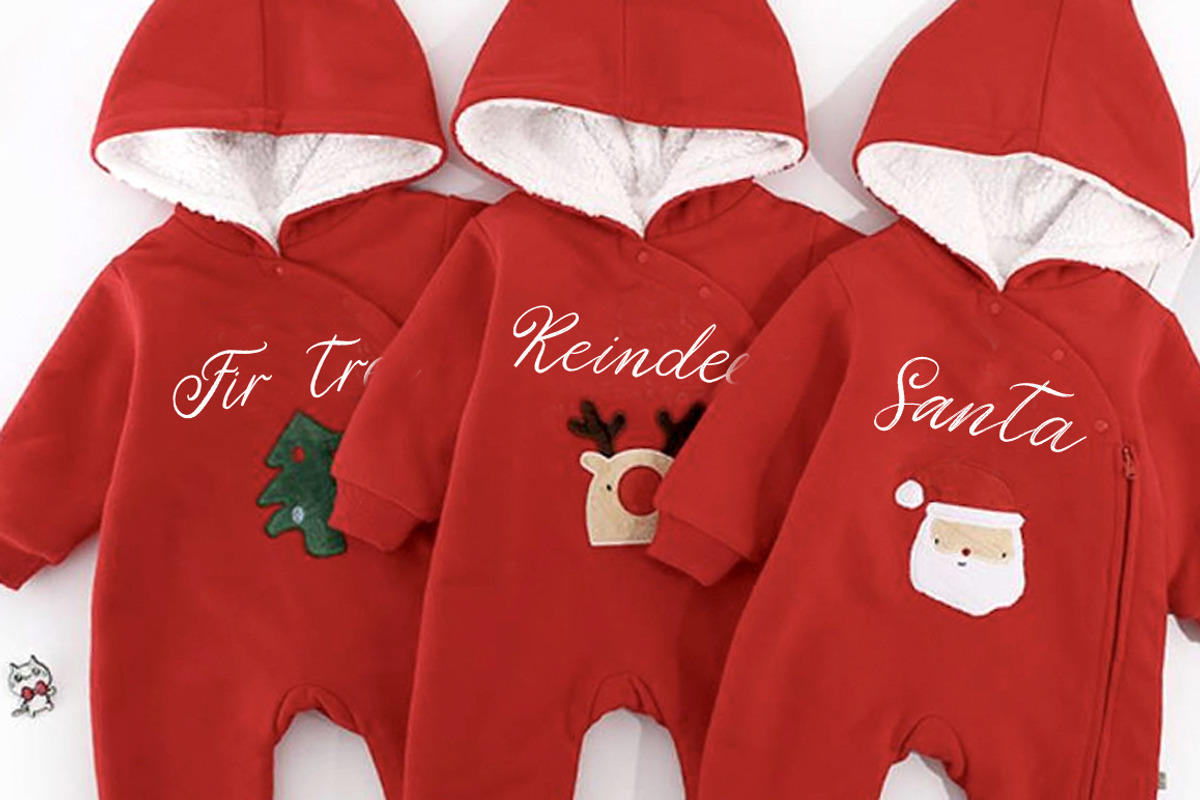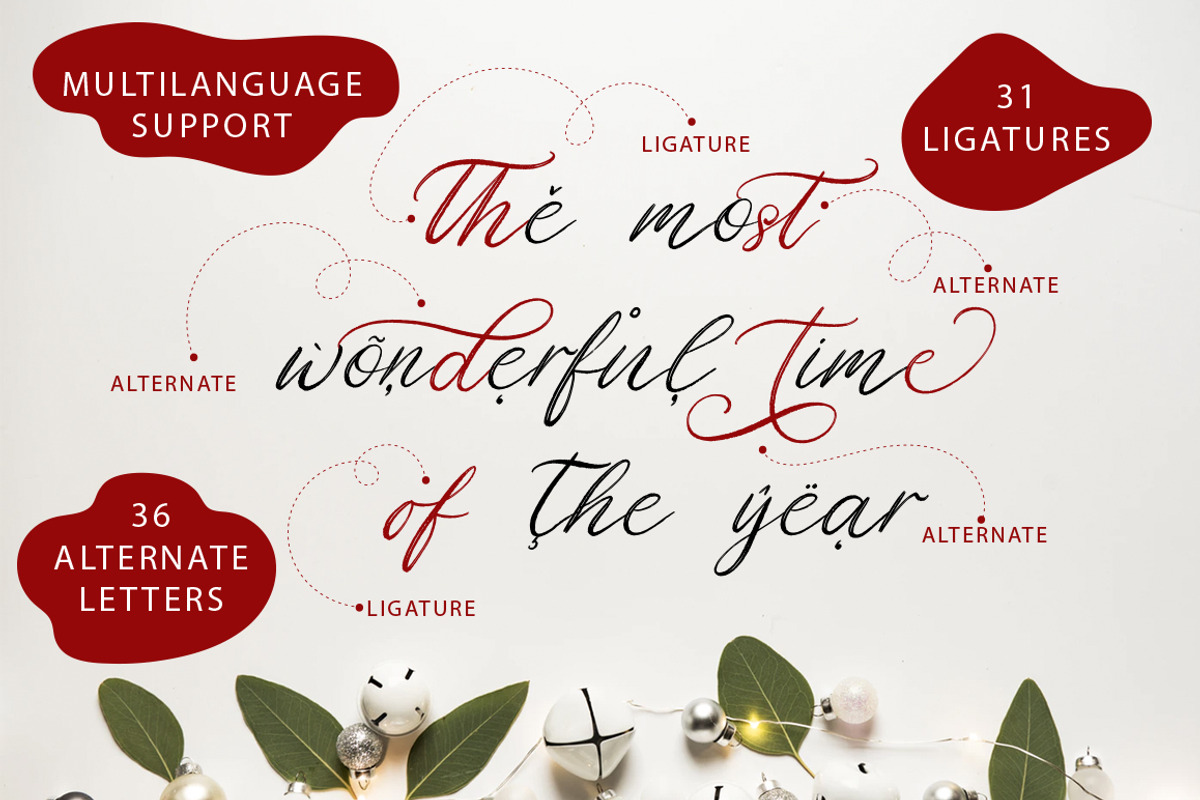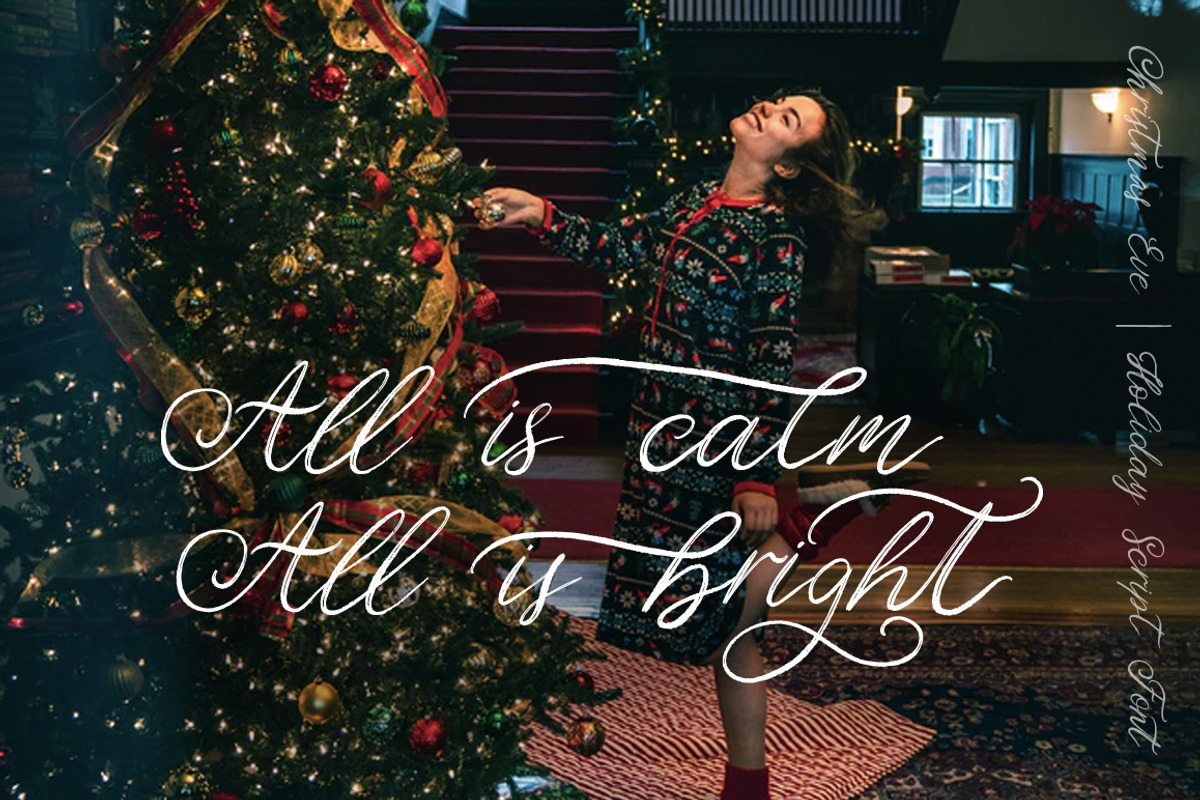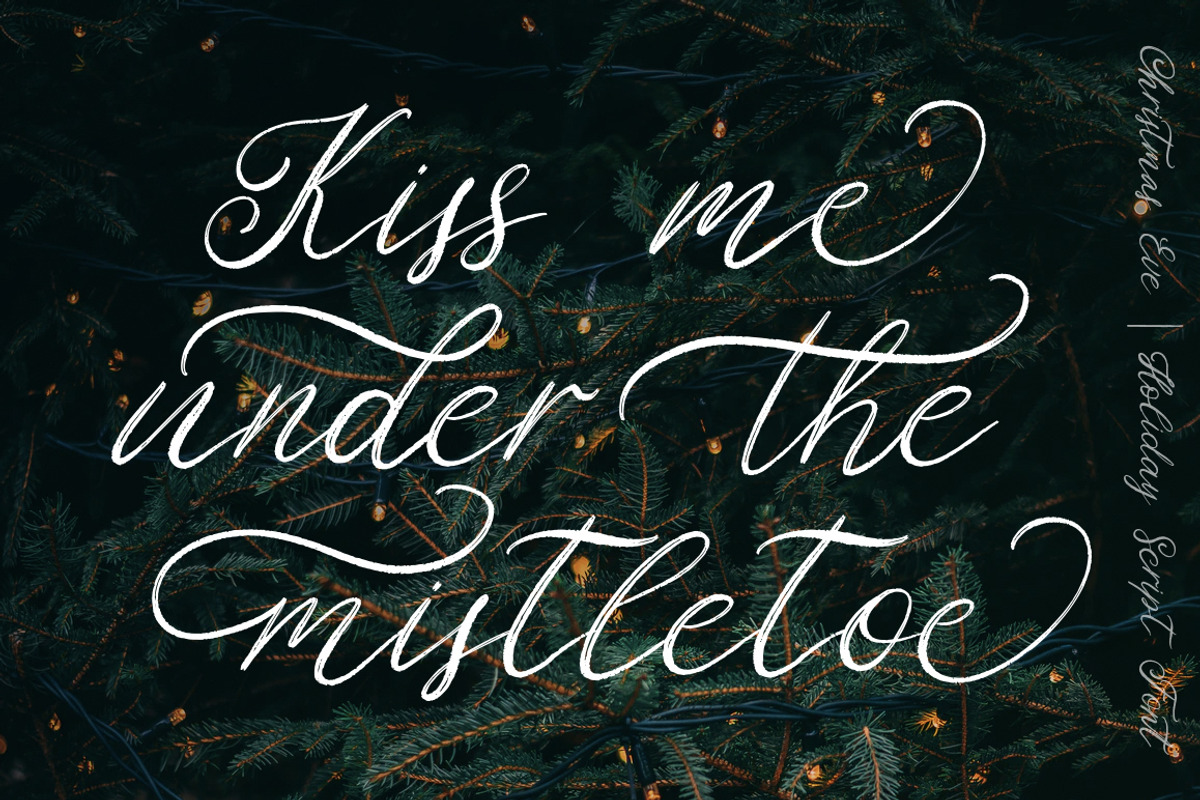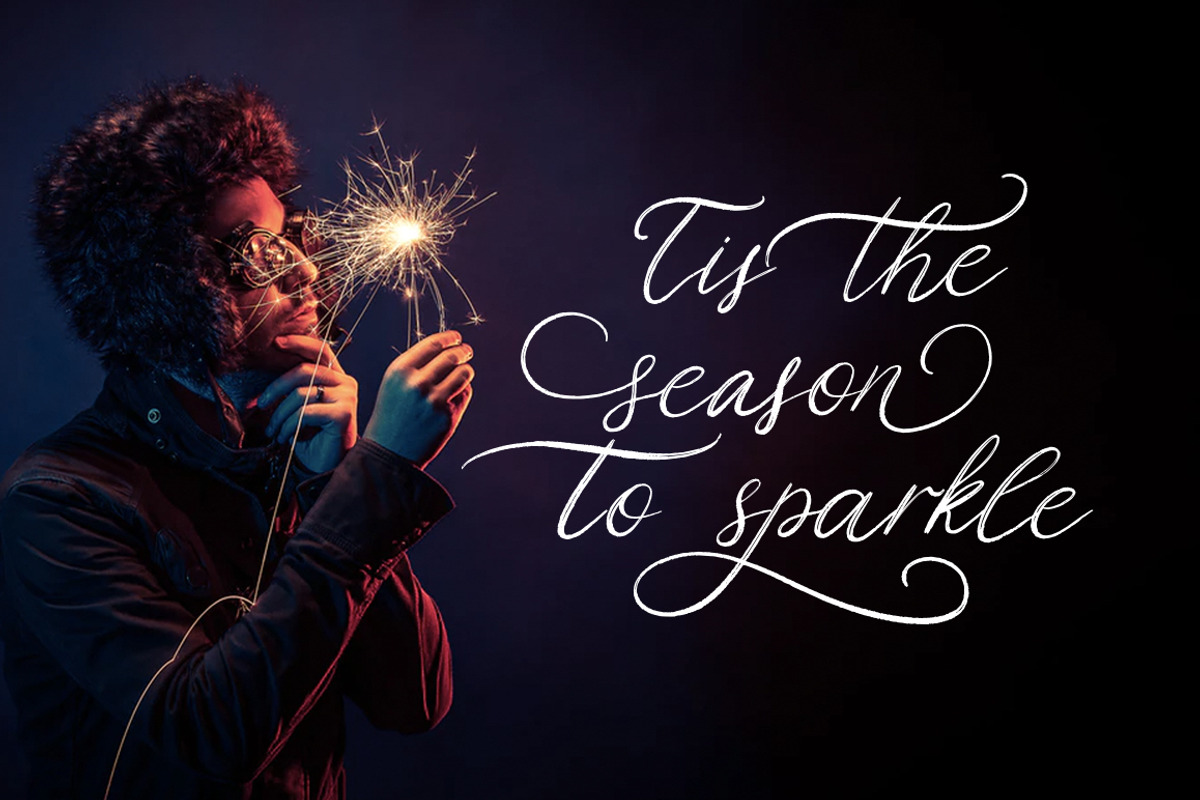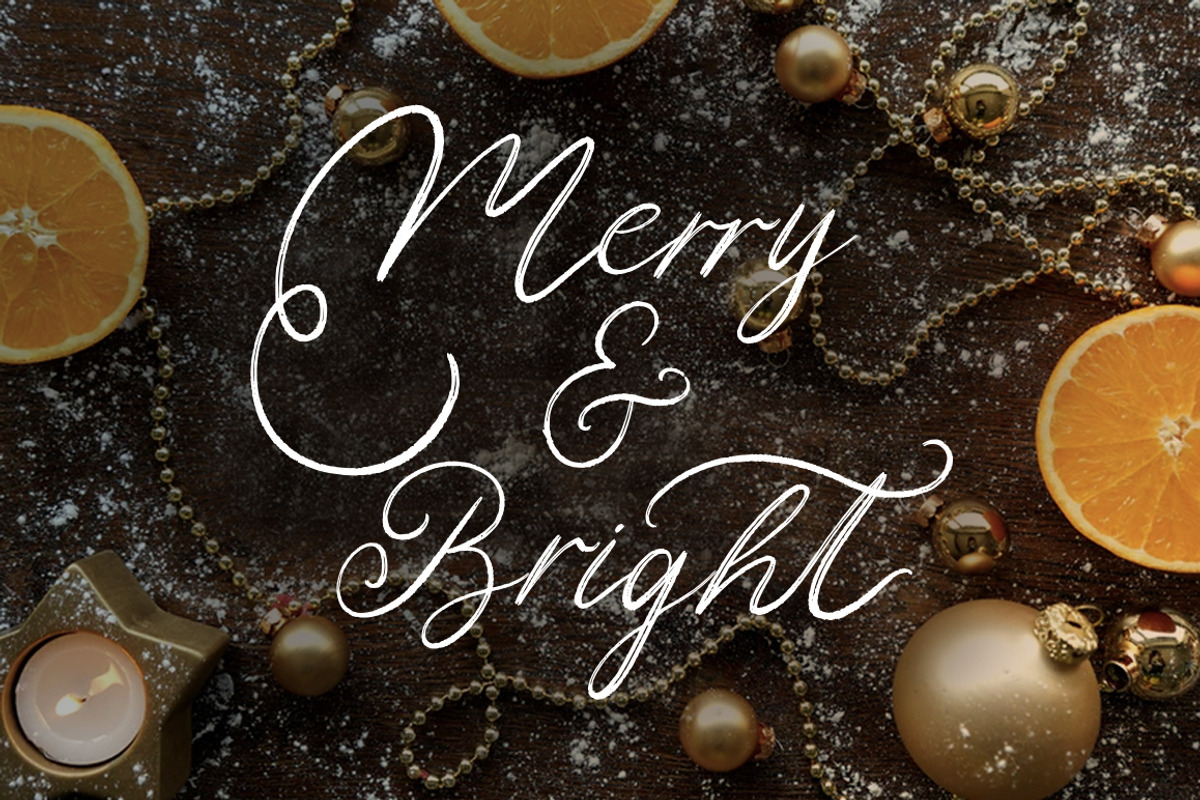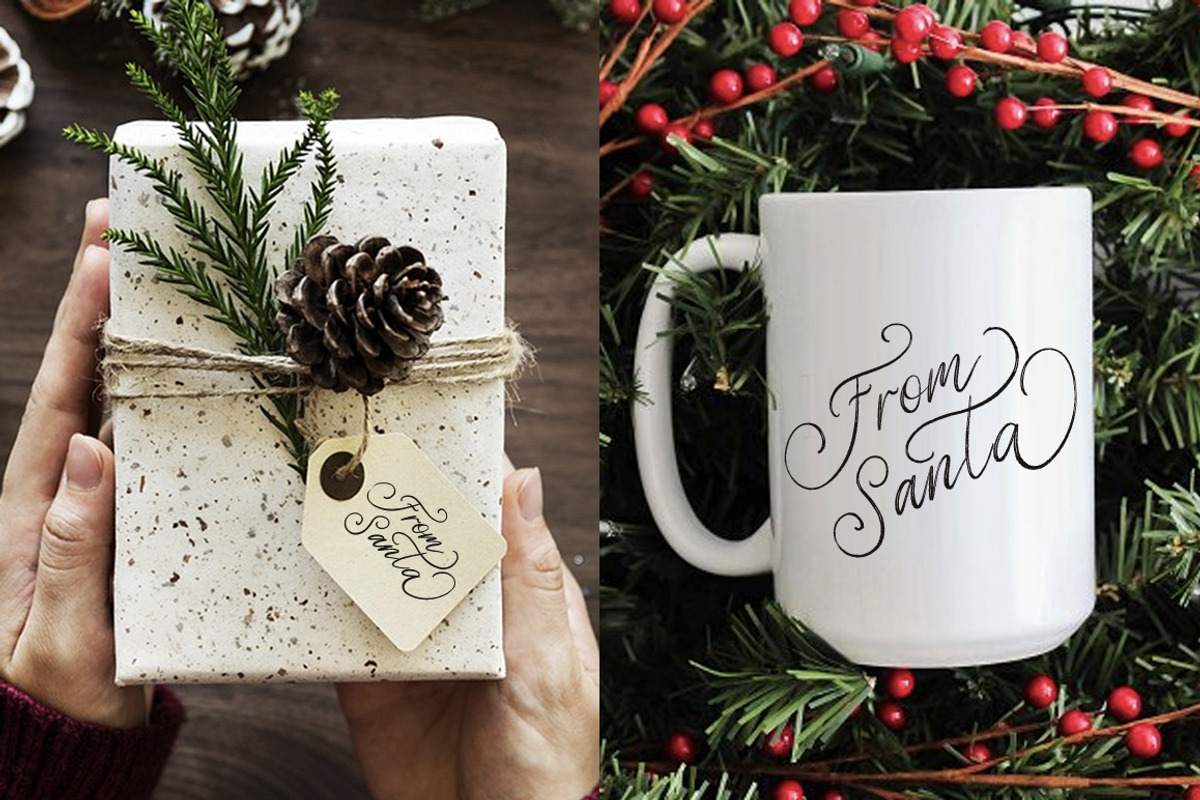
Christmas Eve. Holiday Script font.
Introducing my new holiday font – ‘Christmas Eve’.
A luxury hand drawn textured font, this font perfect for logo, invitation, stationery, wedding designs, social media posts, advertisements, product packaging, product designs, label, photography, watermark, special events or anything and fonts are provided in TTF & OTF formats.
‘Christmas Eve’ font includes:
full set of capital and lowercase letters
multi-lingual support
arternate letters with swashes.